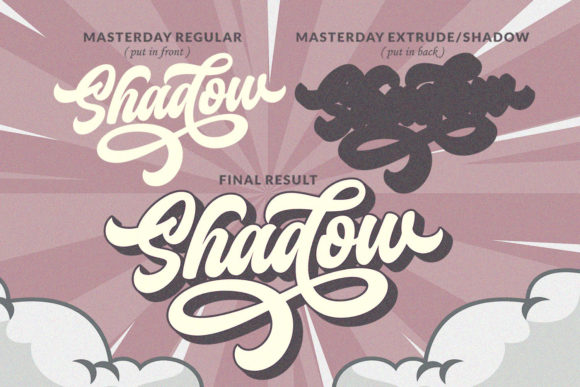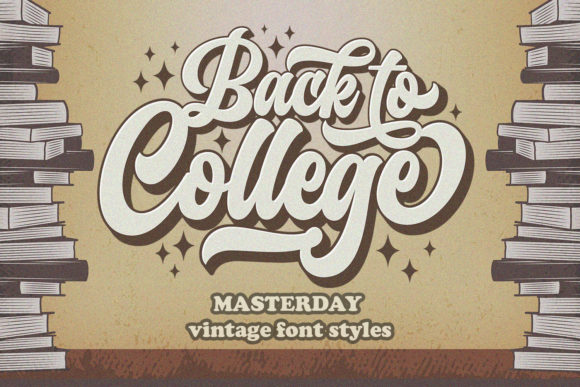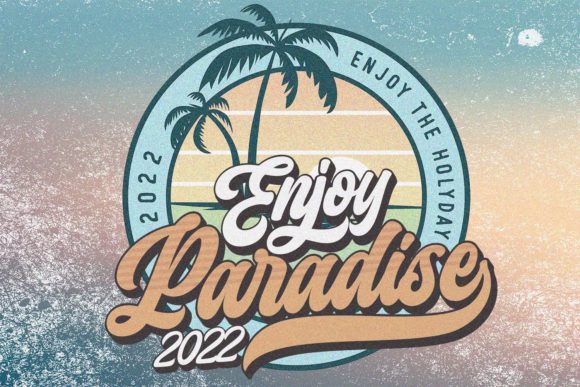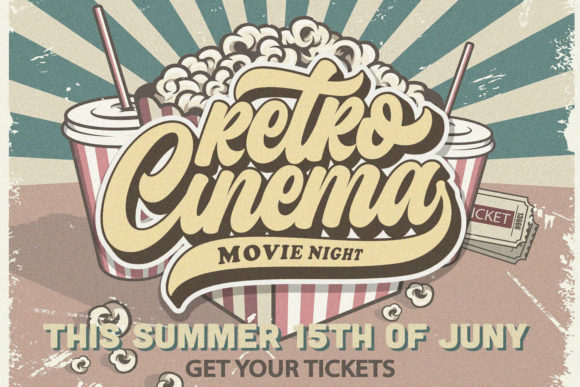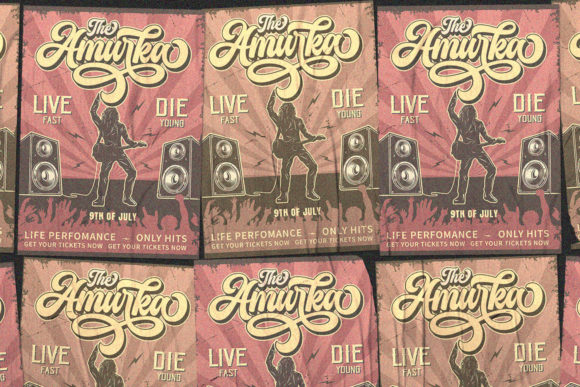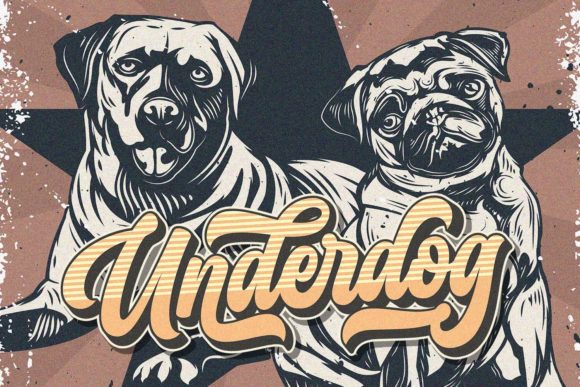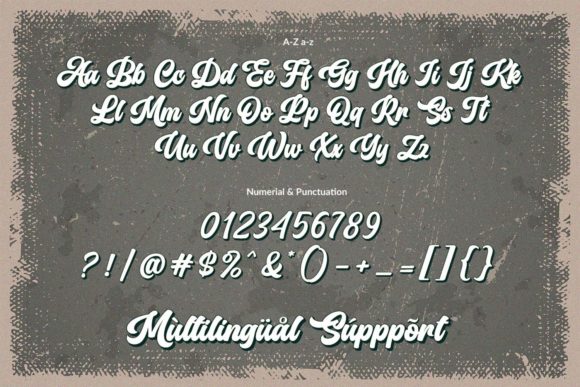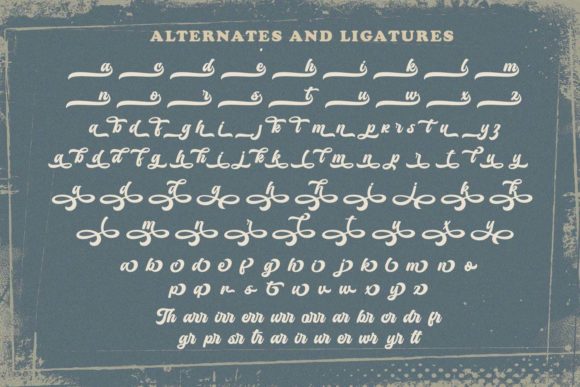
Masterday Font
About Masterday Font
Masterday is a stylish and retro handwritten font. Fall for its ravishing style and use it to create gorgeous designs. This font is PUA encoded which means you can access all glyphs and swashes with ease!